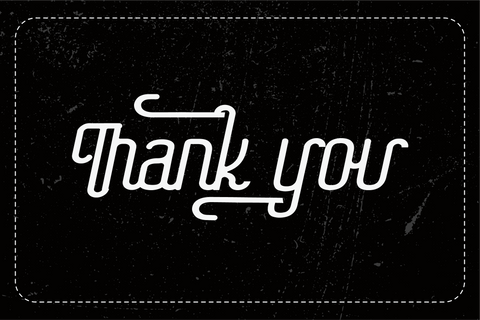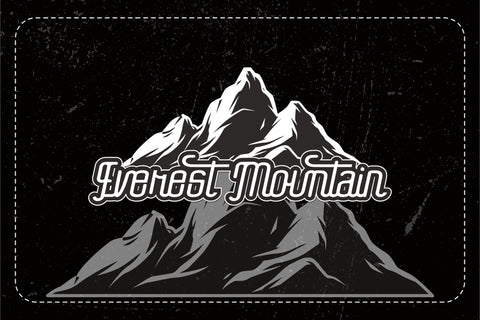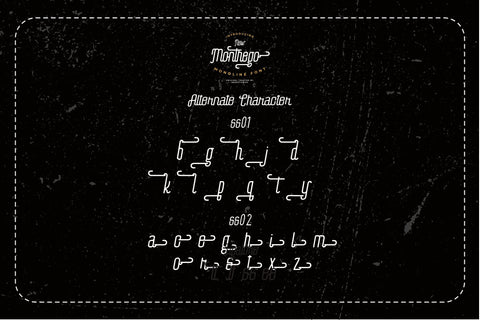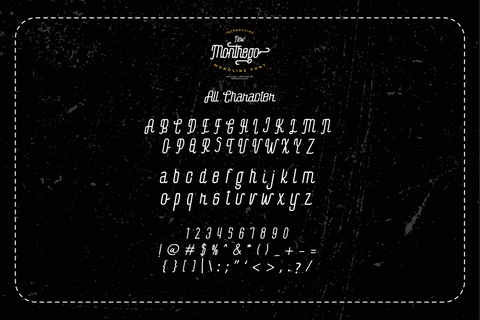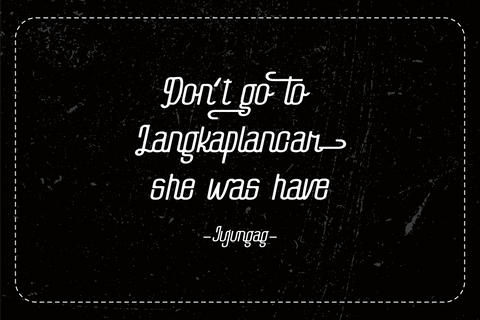
New Monthego Monoline Font
New Monthego Monoline Font is a design font with a natural monoline style that can enhance the quality of your designs.
New Monthego Monoline Font– This Font is perfect for designs, logos, social media, brands, advertisements, product designs, handwritten quotes, product packaging, headers, posters, merchandise, and other designs.
+ Standard glyph
+ Alternate character SS01, SS02
+ Ligature